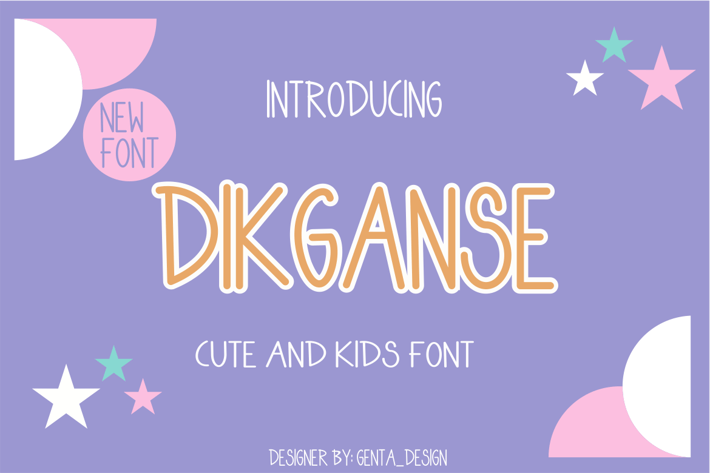
Dikganse - Cute Font
Introducing our new product Dikganse - Cute Font Modern Font
Dikganse - Cute Font - Modern Font is a bold and authentic display font. The font is suitable for any branding project like logo, t-shirt printing, esport, and many more. outstanding in a wide range of contexts.